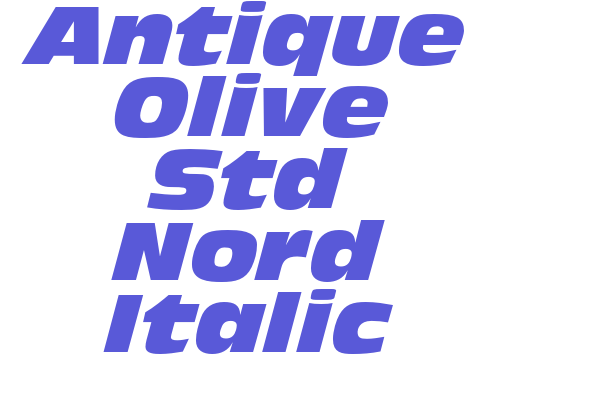
Antique Olive Std Nord Italic is a stylish sans-serif font designed by Roger Excoffon. It belongs to the Antique Olive Std font family and features a unique Nord Italic style. This font is perfect for adding a touch of elegance and sophistication to any design project, making it ideal for use in branding, editorial design, and advertising.
Font Name: Antique Olive Std Nord Italic
Designer: Roger Excoffon
Font Family: Antique Olive Std
Weight: Italic